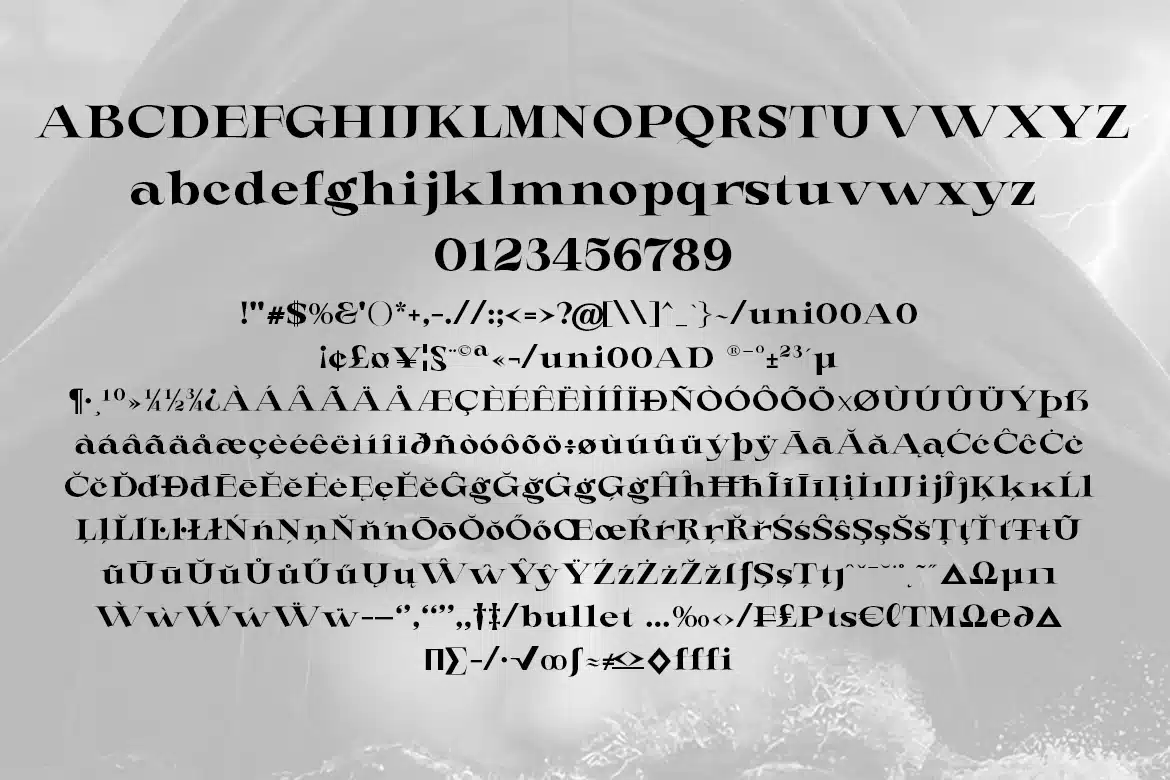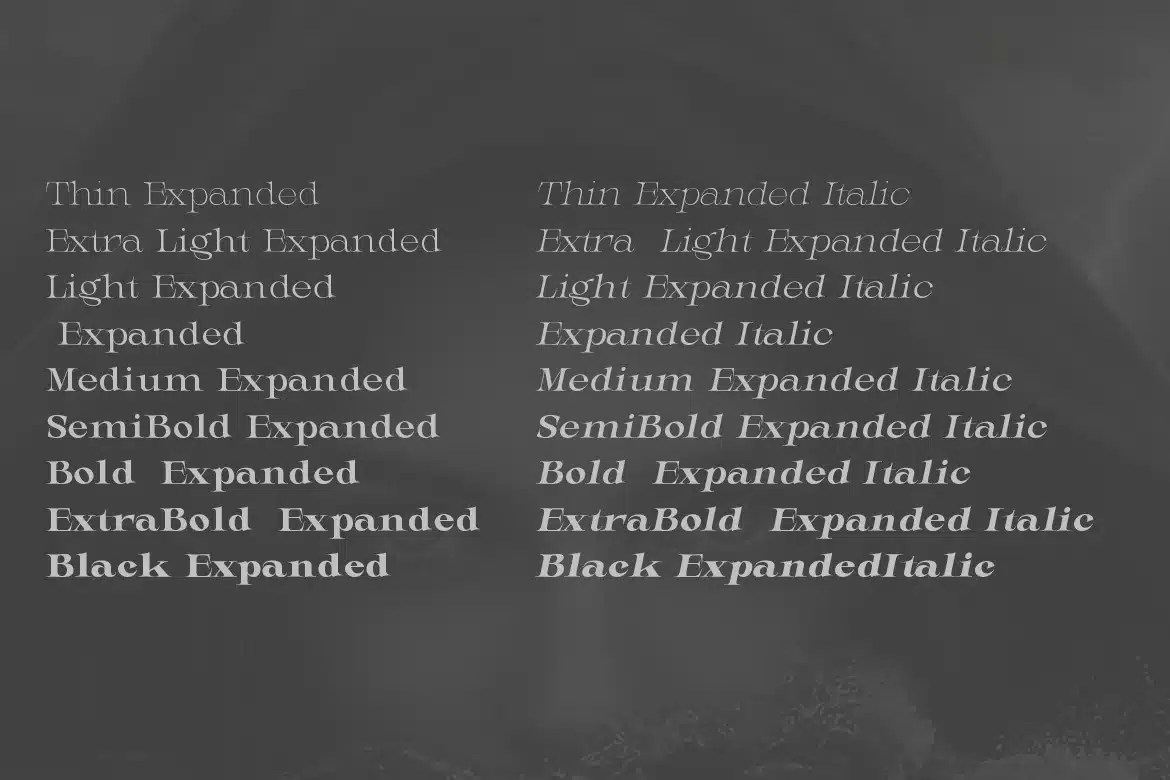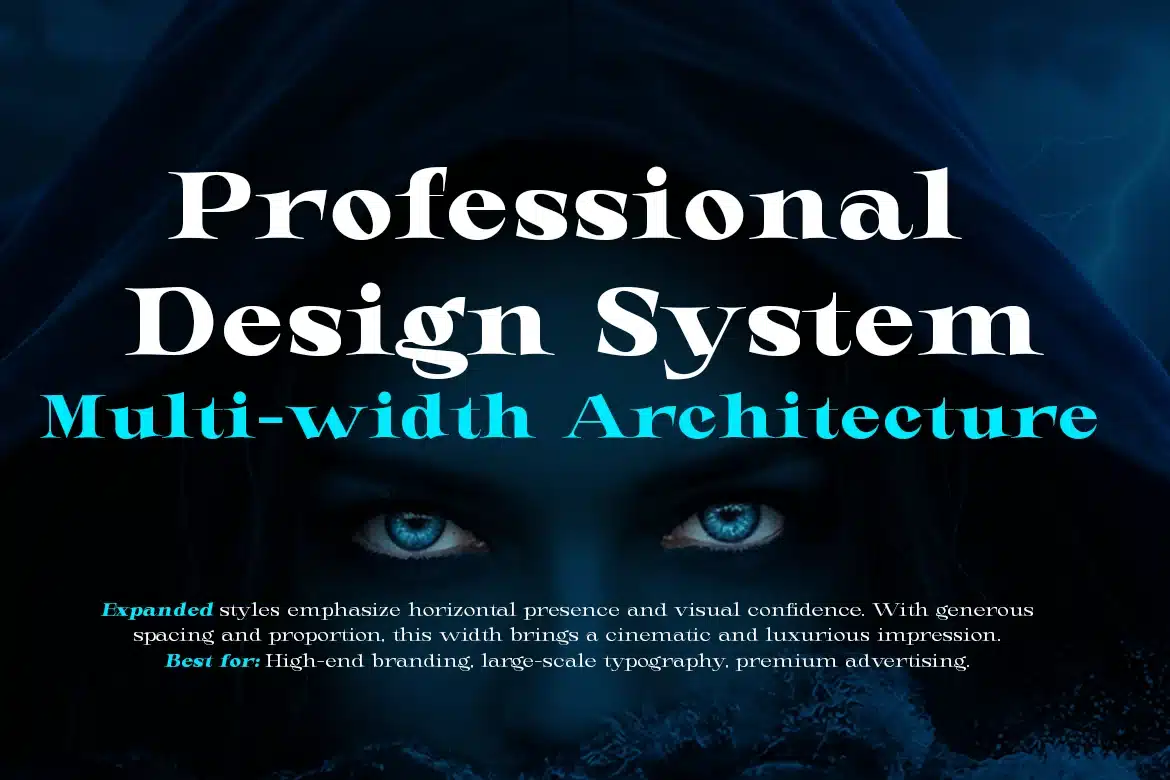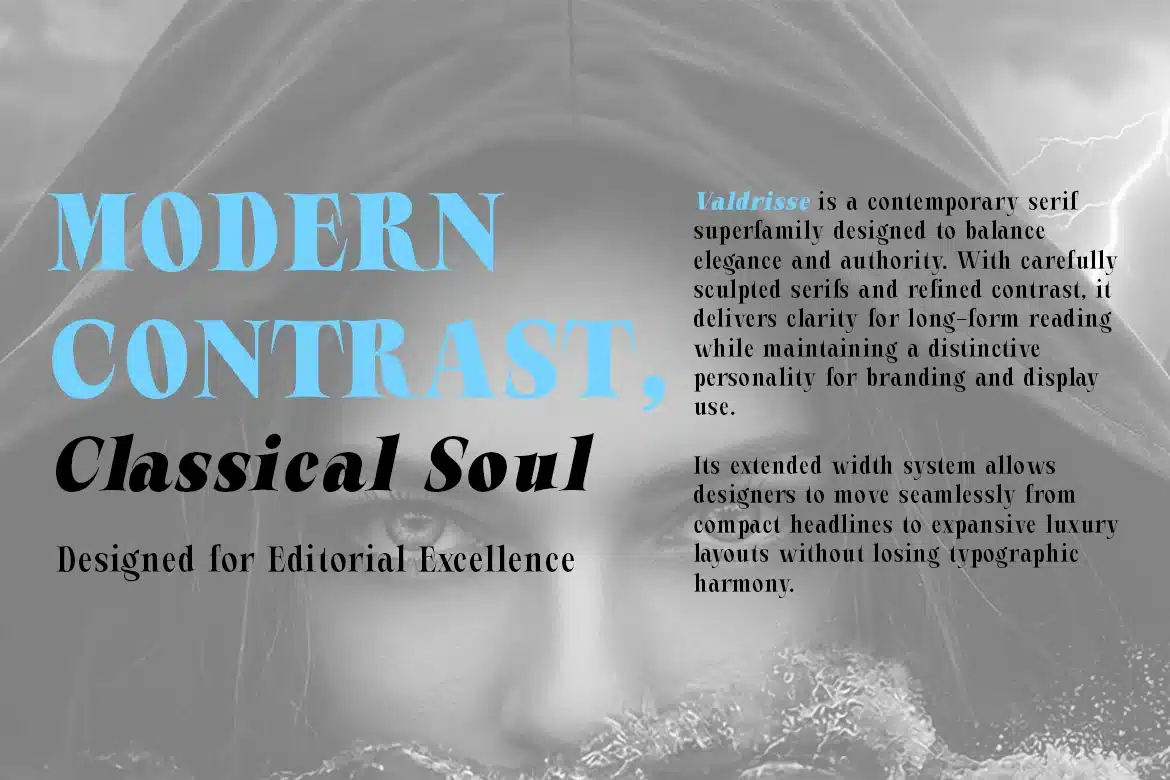
Valdrisse Font
Valdrisse is a refined and versatile serif typeface designed for elegant typography and strong visual hierarchy. Blending classic serif structure with modern proportions, Valdrisse delivers clarity, sophistication, and flexibility across a wide range of design needs.
The family includes upright and italic styles, carefully crafted to maintain balance, rhythm, and readability. Each italic is designed with true calligraphic influence, giving text a natural flow and expressive character.
Valdrisse is organized into five width categories to provide maximum typographic control:
Tall, compact proportions ideal for headlines, editorial layouts, and space-saving designs.
**Semi Condensed **
Slightly narrower with improved readability while still maintaining a tight visual presence.
**Normal **
The core width of the family, perfectly balanced for body text, books, and long-form reading.
Semi Expanded
A more open structure that enhances legibility and adds a graceful, contemporary feel.
**Expanded **
Wide and expressive, perfect for impactful titles, branding, and large display typography.
With its harmonious curves, sharp serifs, and elegant contrast, Valdrisse works beautifully in editorial design, branding, luxury packaging, magazines, advertising, and professional typography systems.
Whether used for expressive headlines or refined body text, Valdrisse offers a complete typographic solution with timeless character and modern precision.